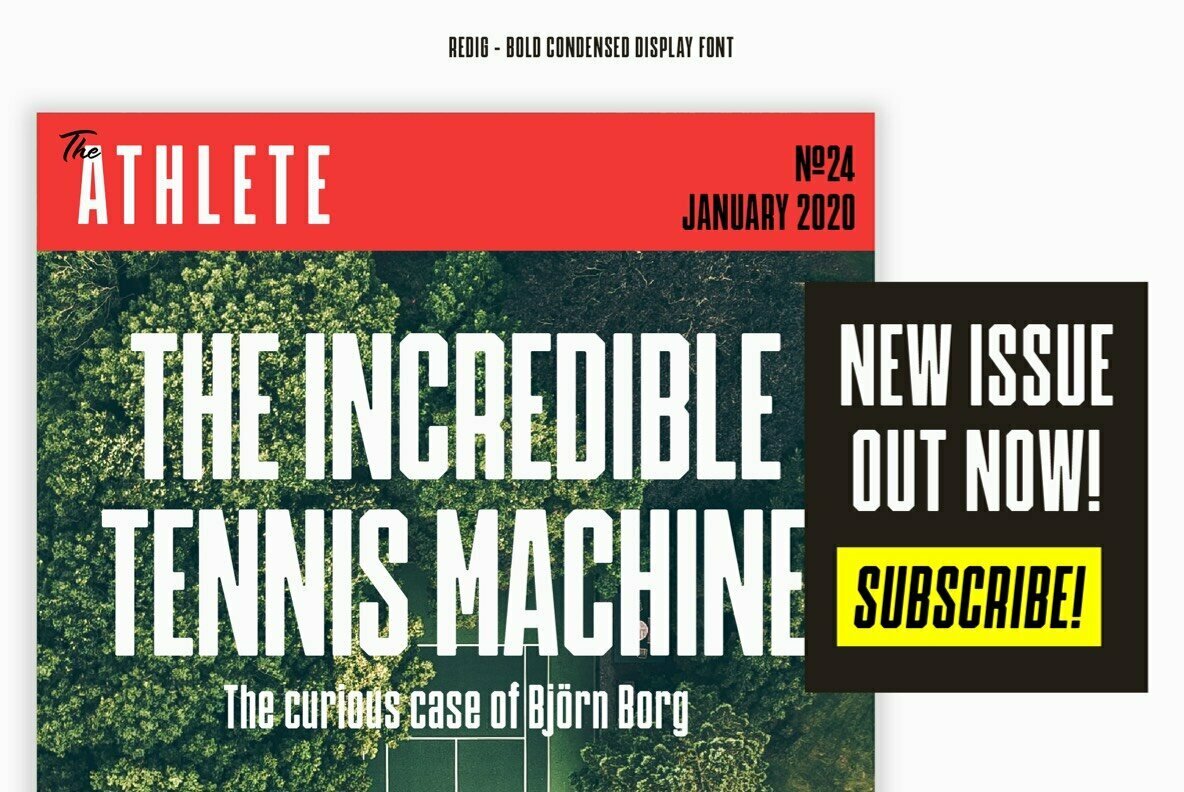
Redig Font
Redig is a bold condensed display typeface with an assertive and athletic aesthetic. Inspired by newspaper headline typefaces from early 1900s it has chamfered corners with rounded edges that smooths out some harshness and generous x-height to the lowercase letters.
Redig will shine when used big. And I mean BIG. This is certainly a case when “bigger is better” really is the truth.
Redig comes with an oblique style, ligatures, 340+ glyphs and supports 28 languages.